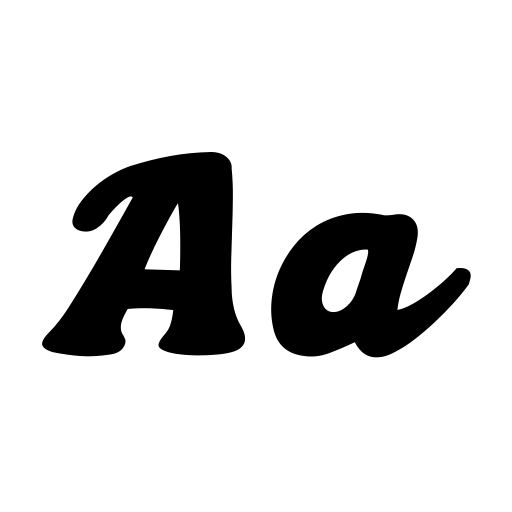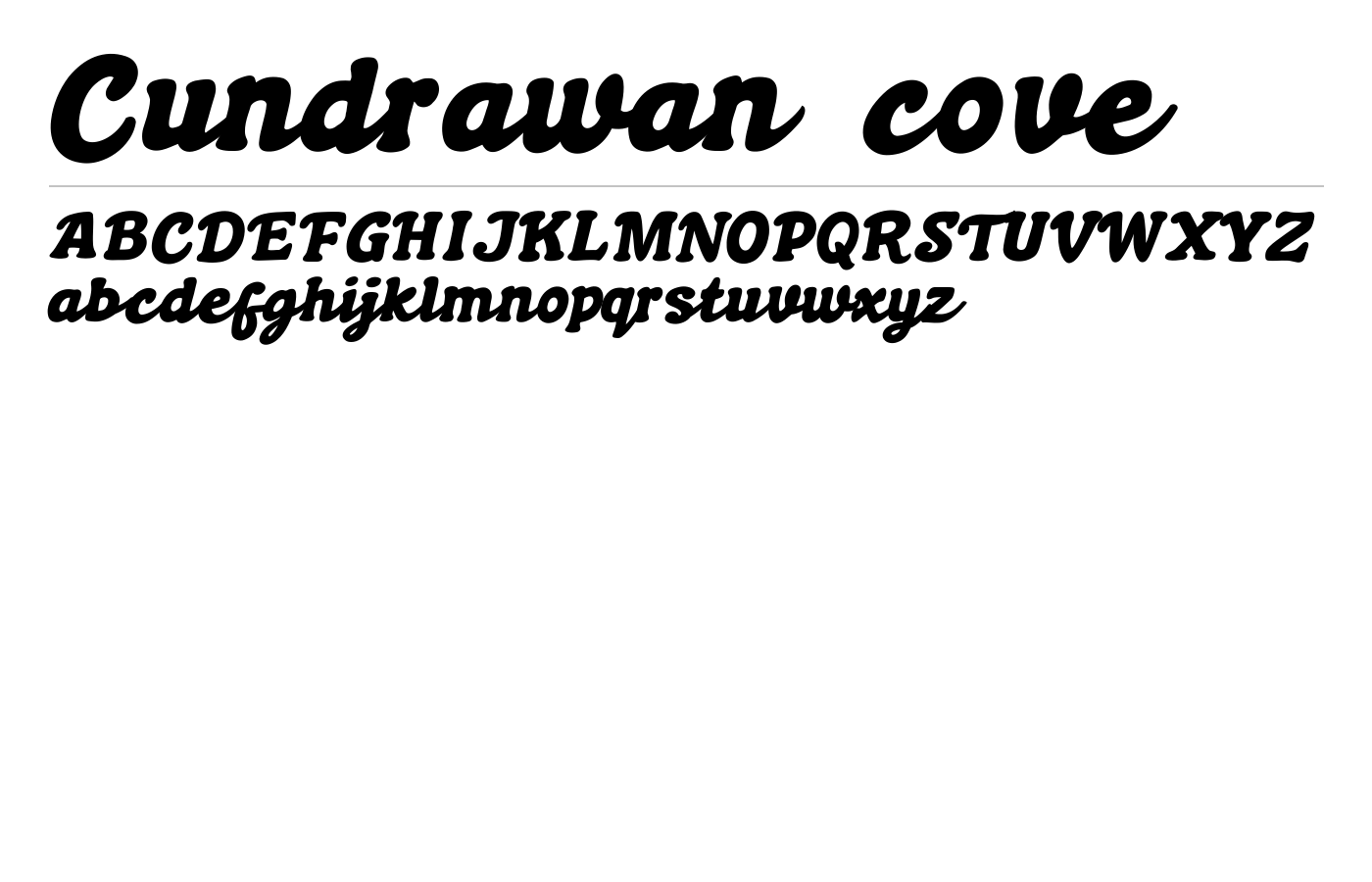
Boldywolf is a bold, playful script font with smooth, rounded strokes and a strong presence, combining casual charm with confident style. Its generous weight and slightly condensed width make it ideal for eye-catching headlines, branding, and packaging where a friendly yet impactful look is desired. Perfect for creative and lifestyle projects, Boldywolf brings warmth and personality without sacrificing readability.
Boldywolf Font